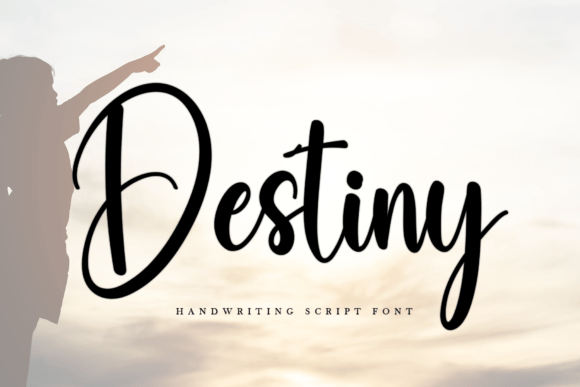
Step into a world of enchantment, where words dance with grace and elegance – introducing Destiny Font, a captivating script font that weaves magic into your designs.
With its whimsical strokes and flowing lines, Destiny Font is the perfect choice for those seeking a font that exudes charm and personality. Inspired by the beauty of handwritten letters, this font brings a touch of warmth and intimacy to your projects, making them truly stand out.
Whether you're designing wedding invitations, creating heartfelt greeting cards, or crafting enchanting social media posts, Destiny Font will transform your words into captivating works of art. Its organic and playful style adds a personal touch to any project, inviting your audience to immerse themselves in the story you're telling.
Step away from the ordinary and embrace the extraordinary with Destiny Font. Let your creativity soar as you explore the endless possibilities it offers. From enchanting book covers that draw readers in to eye-catching logos that leave a lasting impression, Destiny Font is your key to unlocking a world of boundless imagination.
So, embark on a creative journey with Destiny Font, and let your words dance with joy and elegance. Discover the magic it holds and transform your designs into captivating masterpieces.